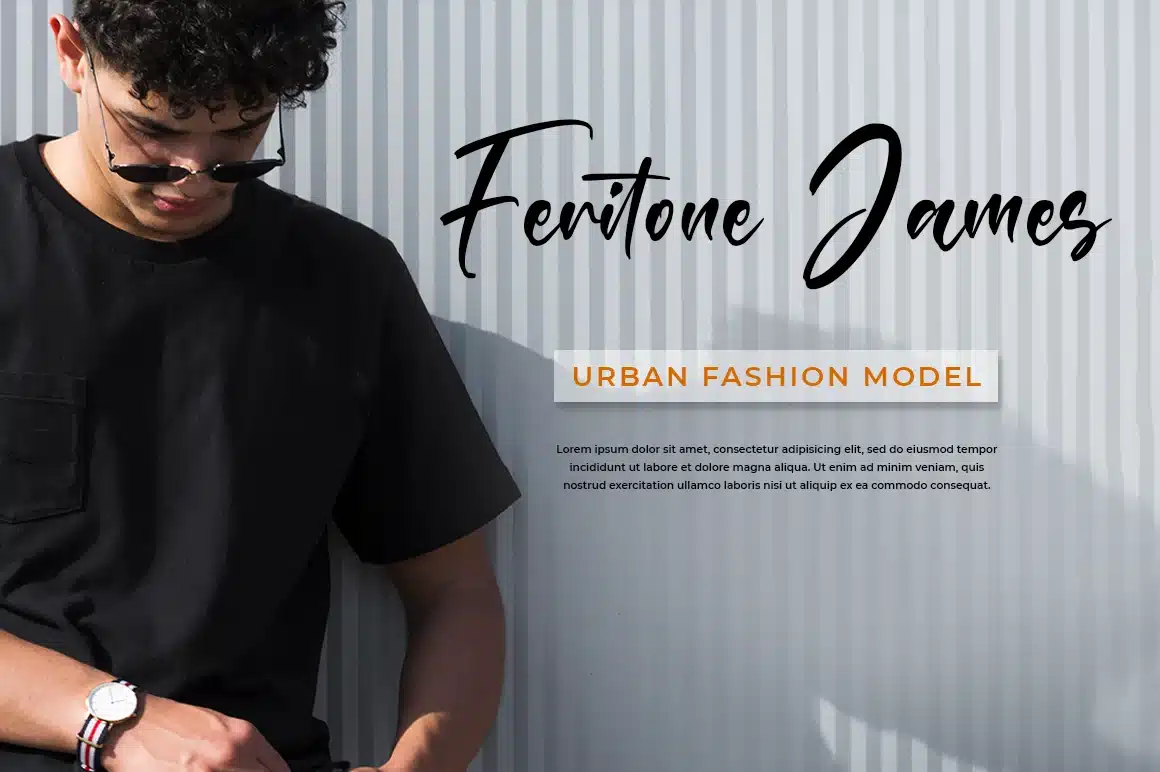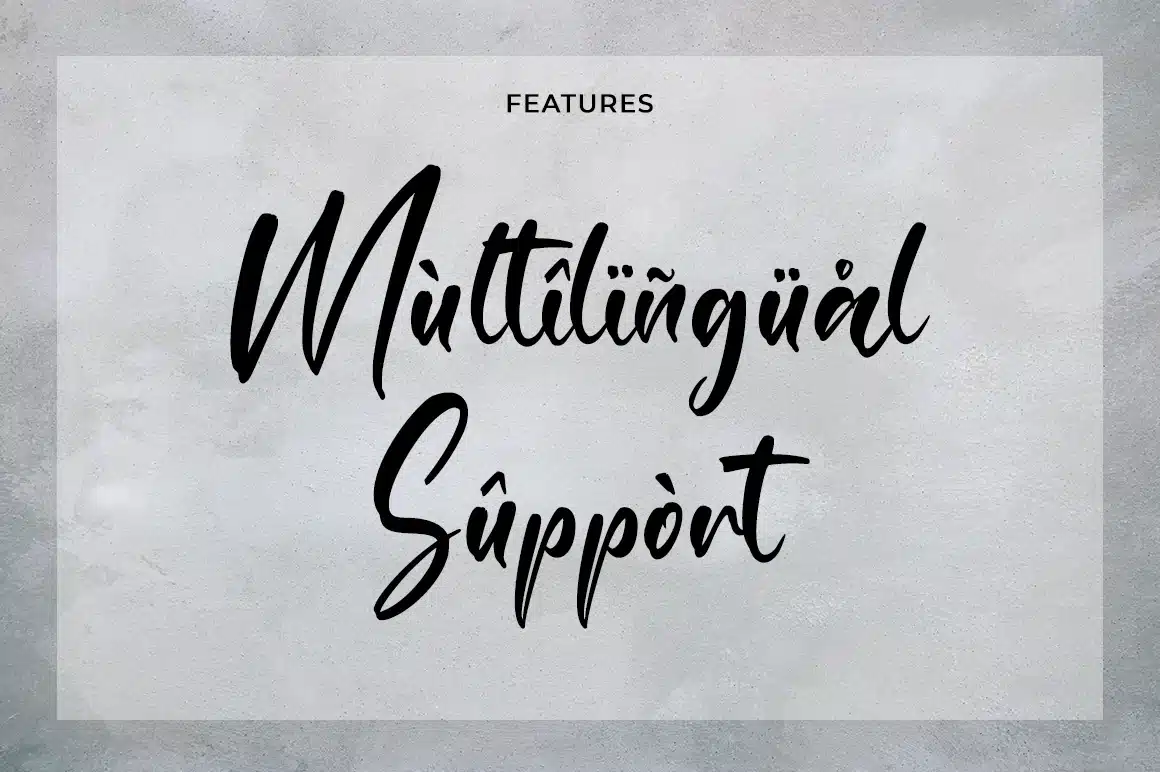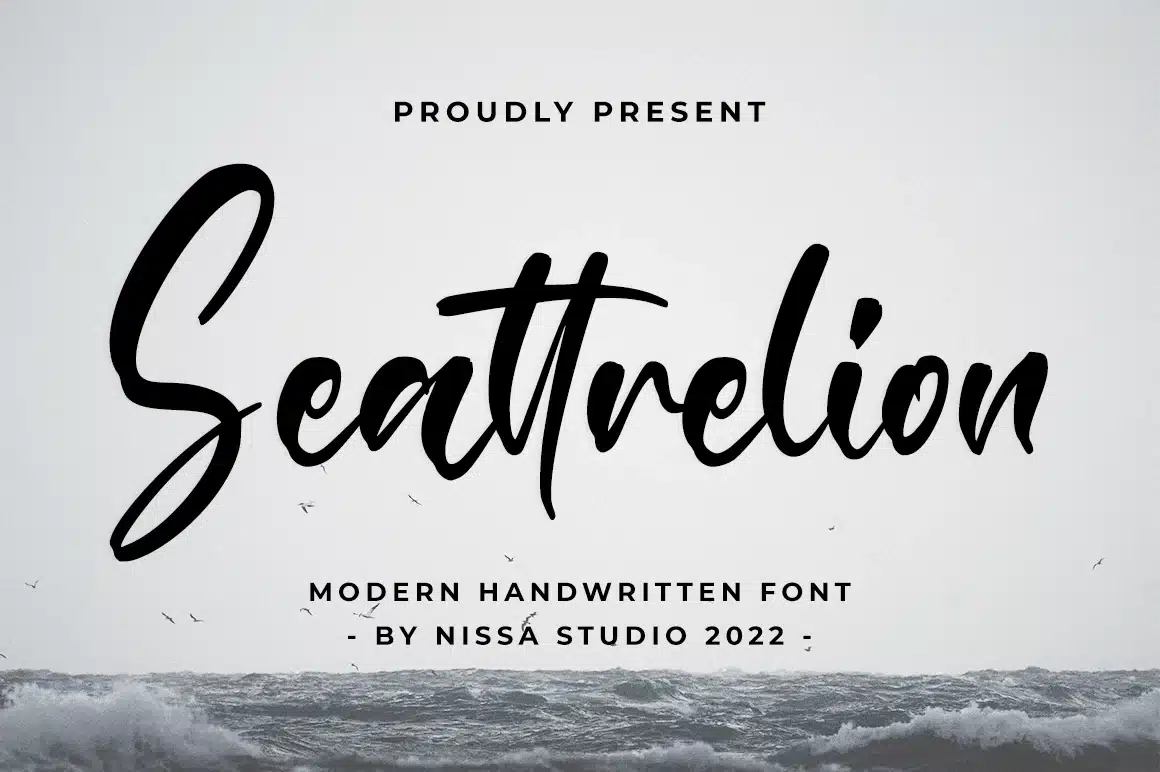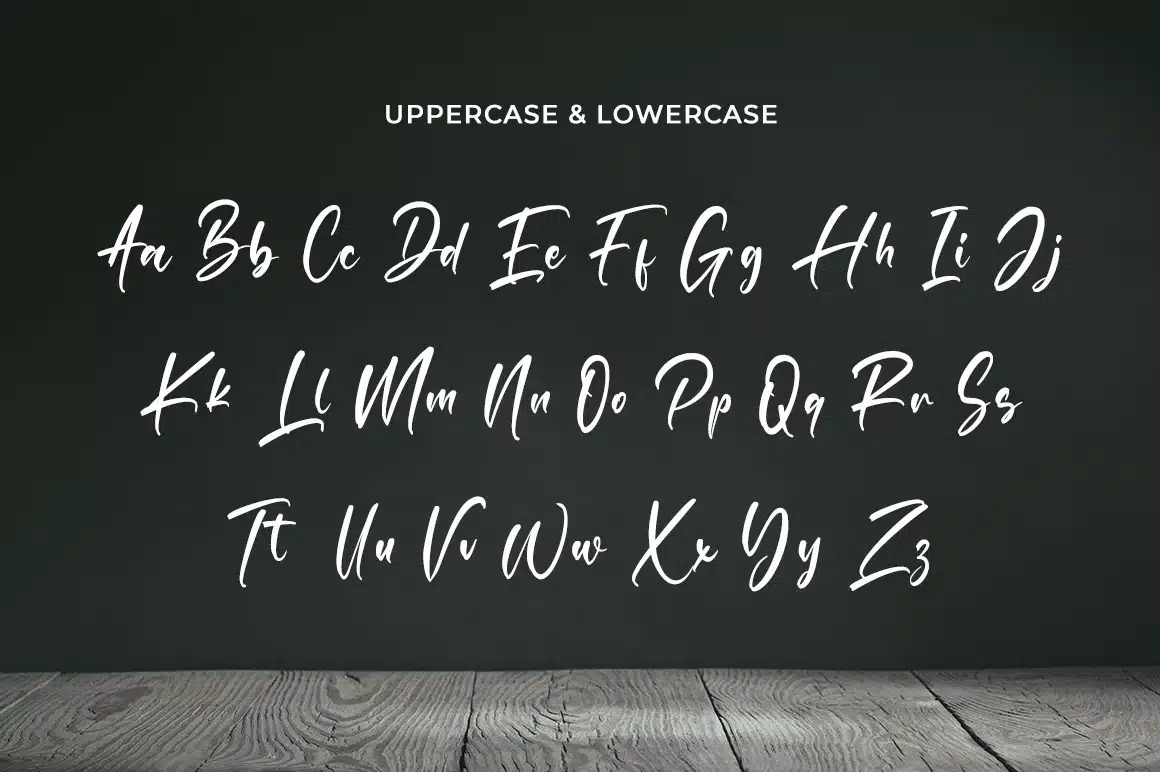
Seattrelion Font
Seattrelion is a beautiful and delicate handwritten font with a unique feel and a stunning impact. It will add a luxury spark to any design project that you wish to create!
- Modern Handwritten Font
- Beautiful Swash (Ending tail)
- Beautiful Titling (Beginning tail)
- Special Ligatures